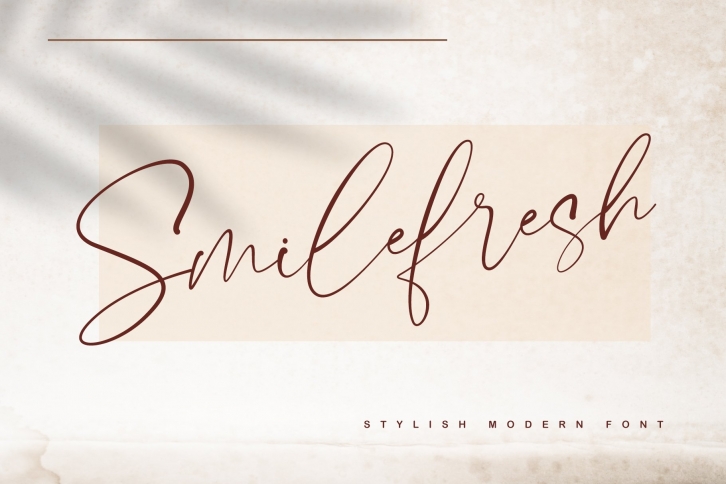
Smilefresh is a handwritten script font and natural style, this font is great for your next creative projects such as watermark on photography, quotes, album cover, logo, business card, and many other design project.
Smilefresh comes with uppercase letters, lowercase letters, numbers and punctuation